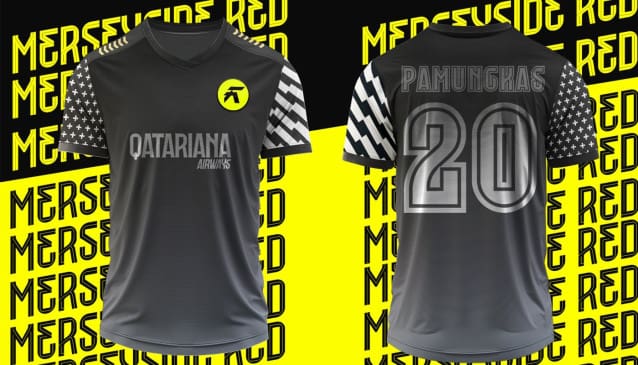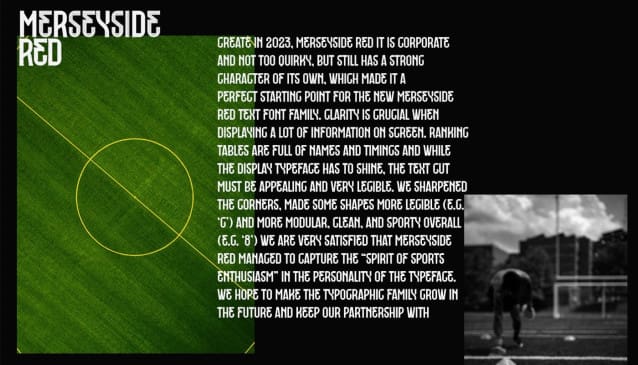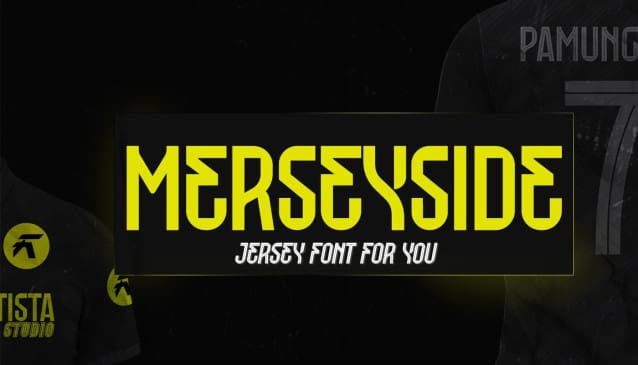
Merseyside Display Font
Merseyside Display Font, a condensed sport inspired upper and lowercase typeface. Merseyside has five Style with sans serif and matching italics. This typeface has a clean and athletic look, glyphs and extensive Latin script support. Merseyside Display is bold, vibrant with sharp sans serifs and competitive appearance, therefore excellent to use for headers, logos, captions and posters, especially for the sports branding industry, but just as good for any other projects.